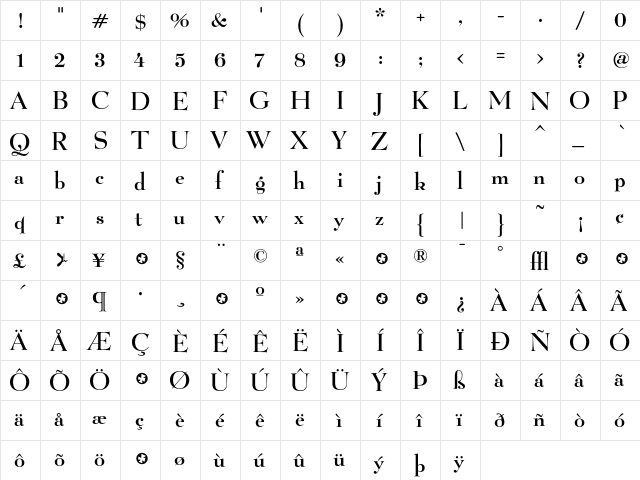
Belucian DemiBold
Design Context for Belucian Typeface
Belucian takes a measured approach to typography — its balanced proportions and neutral character make it a reliable workhorse for both digital and print work. Its bold stroke weight gives it real presence on the page.